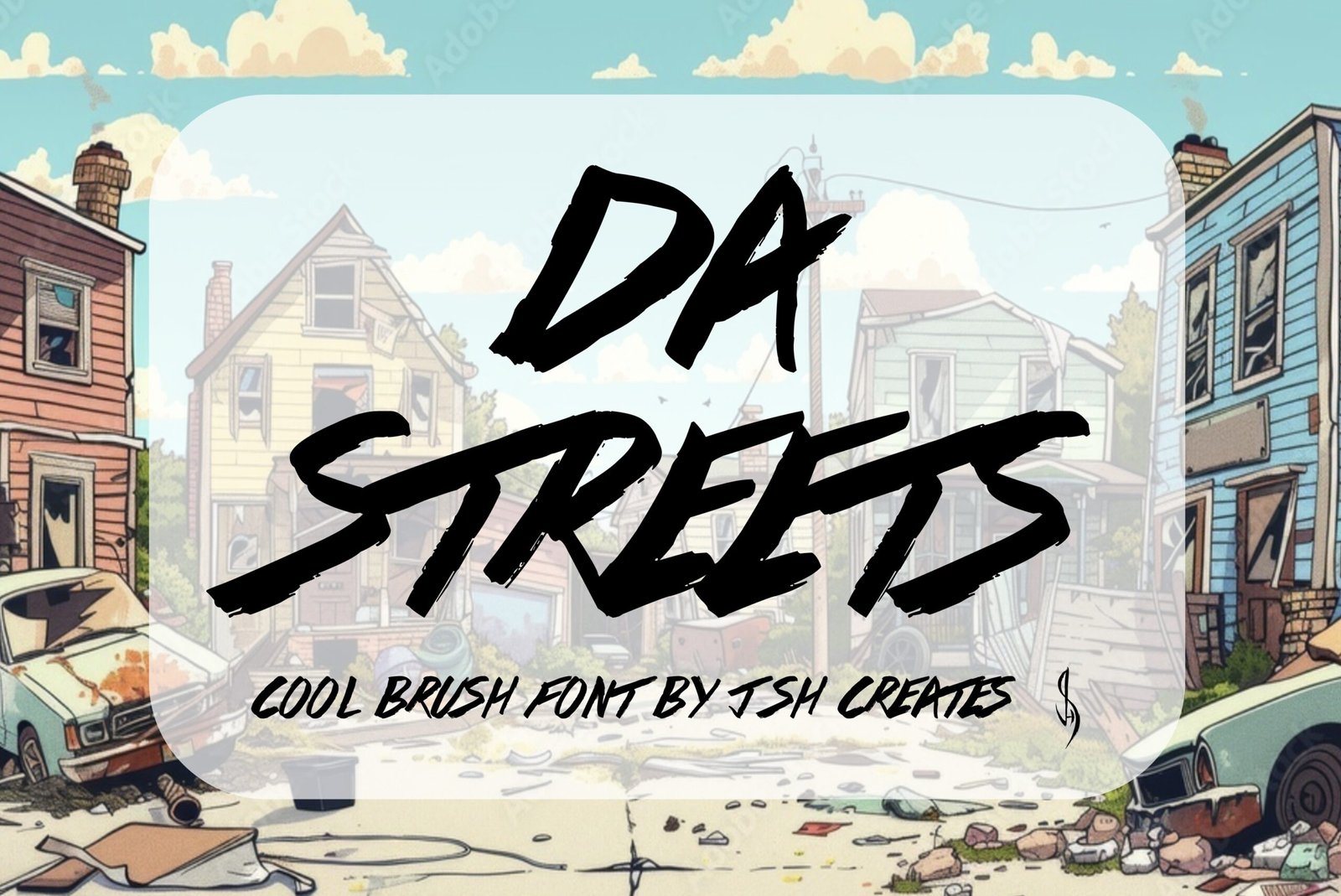
Da Streets Font
Cool brush script font. “Da Streets” Perfect for advertising and display purposes, including banners, book covers, shirts, posters, logos and much more!
This is an ALL CAPS font.